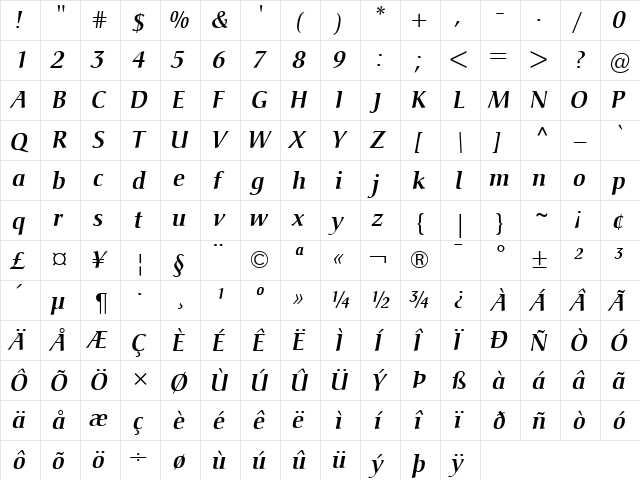
Christiana ItalicBold Font Preview
Design Context for Christiana Typeface
Christiana offers clean, dependable letterforms without strong stylistic allegiance, making it a practical choice for designers who need flexibility. The dynamic lean of this cut emphasises speed and emphasis in any layout. The heavy weight commands attention and anchors typographic hierarchies.
Pro Tip: Try Christiana for annotation and caption copy alongside an upright companion — the contrast in angle creates a dynamic but ordered typographic system.